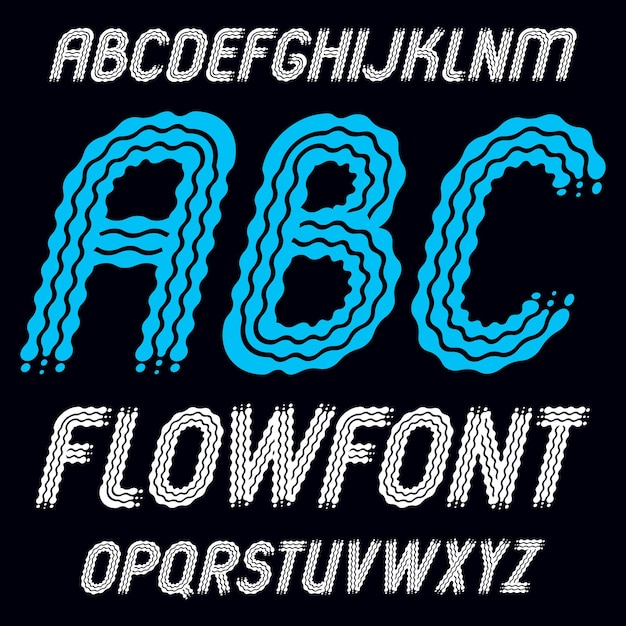
set of trendy pop vector capital english alphabet letters isolated. rounded bold italic retro font, typescript can be used in art creation. made using flow, wavy lines.
Set of trendy pop vector capital english alphabet letters isolated. rounded bold italic retro font, typescript can be used in art creation. made using flow, wavy lines.